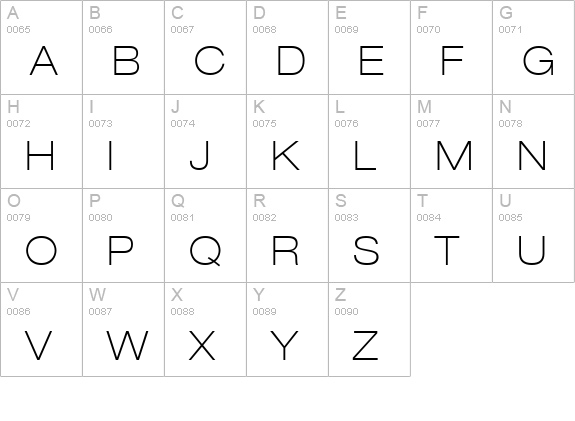
Context Reprise ThinExp SSi Normal Font Details
Context Reprise ThinExp SSi Normal is the standard, neutral variant in the Context typeface family \xE2\x80\x94 well suited to general body text, paragraphs, and standard typographic work.
Context Reprise ThinExp SSi Normal font is a sleek and elegant typeface that exudes sophistication and modernity. With its slender and refined letterforms, this font is perfect for creating a minimalist and contemporary aesthetic in your designs. The thin weight of the font adds a delicate touch while still maintaining excellent readability. This font is ideal for a wide range of design projects, including branding, editorial design, packaging, and more. Whether you're looking to create a clean and stylish look or add a touch of sophistication to your designs, Context Reprise ThinExp SSi Normal font is the perfect choice. Best of all, this font is available for free download at FontsMarket.com. So go ahead and enhance your projects with this beautiful and versatile typeface today!